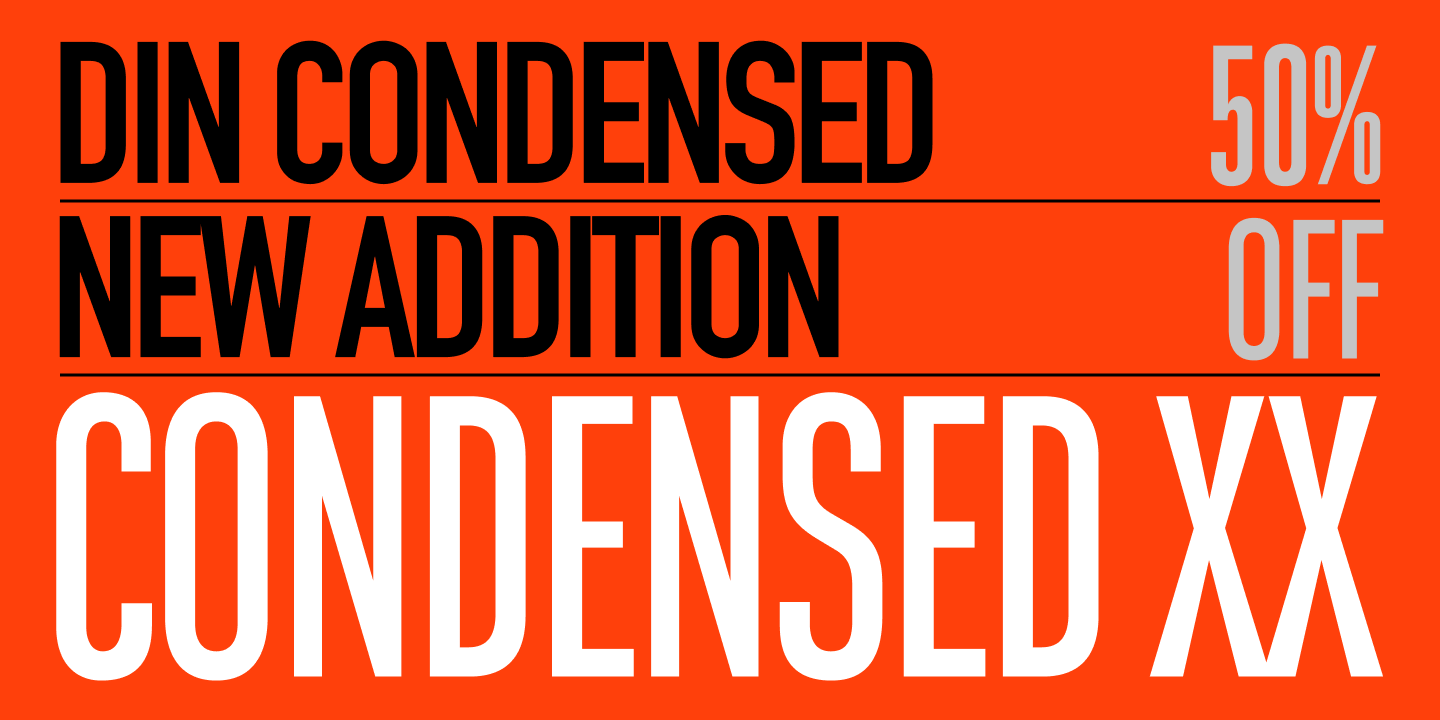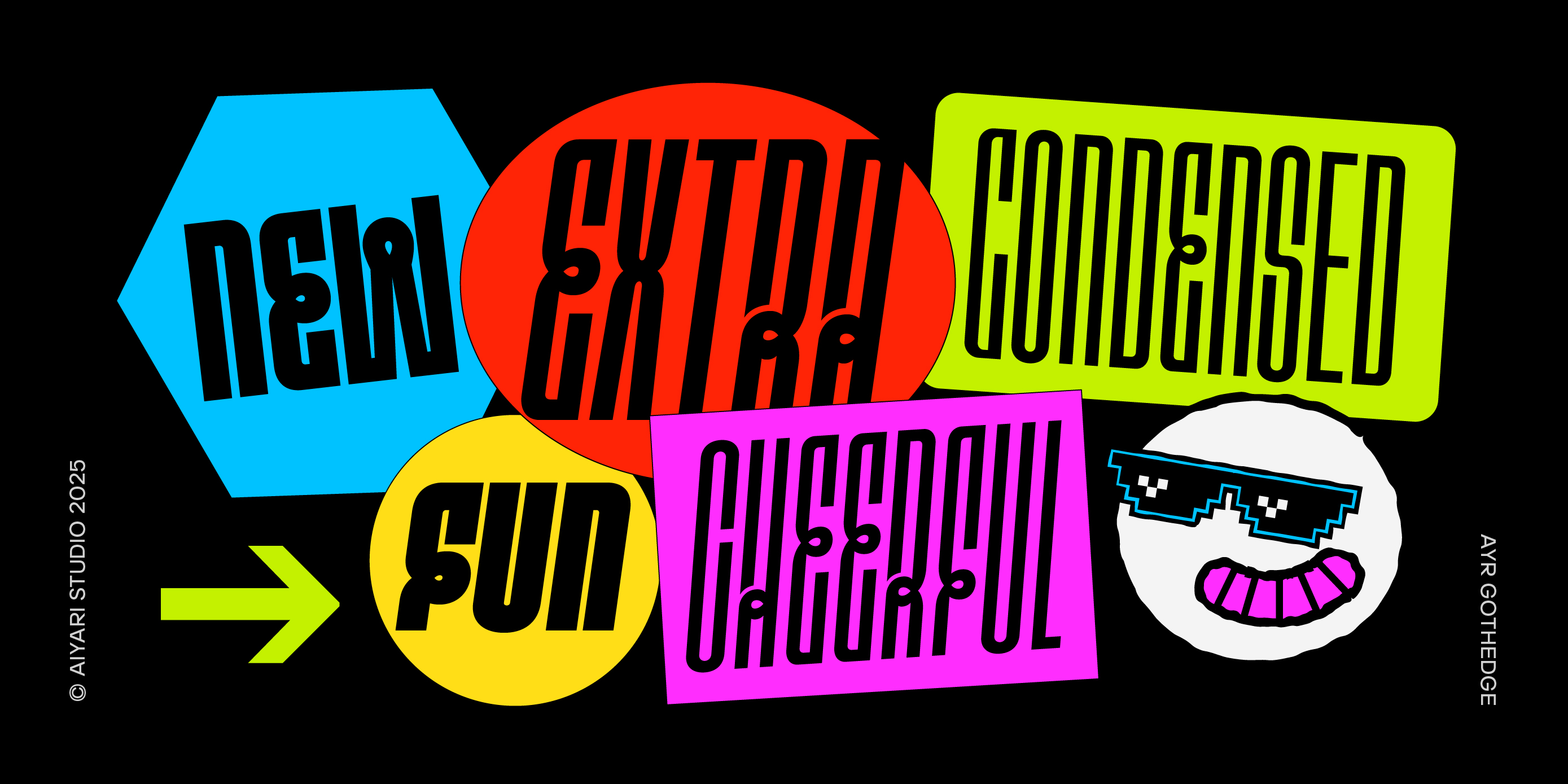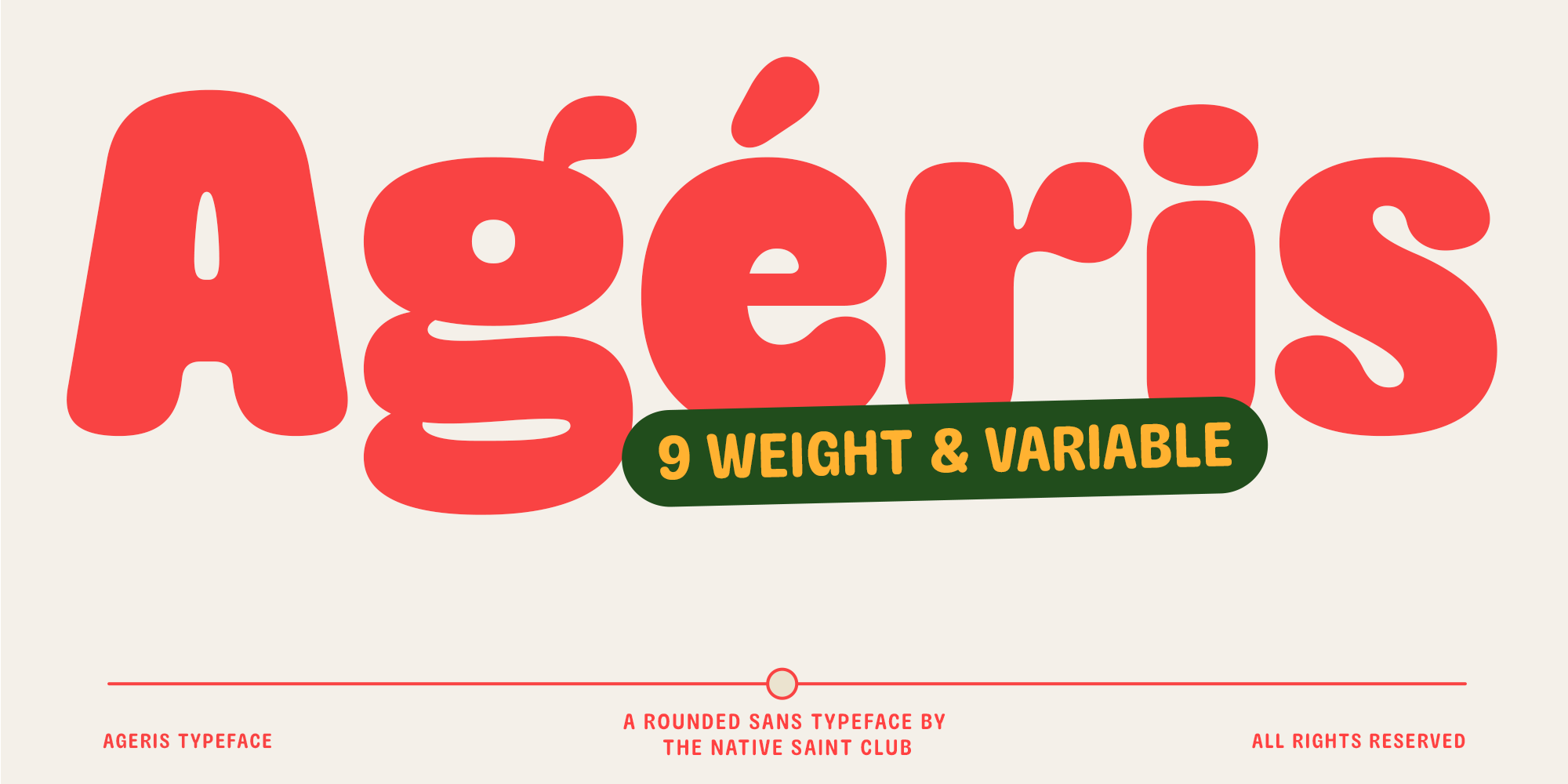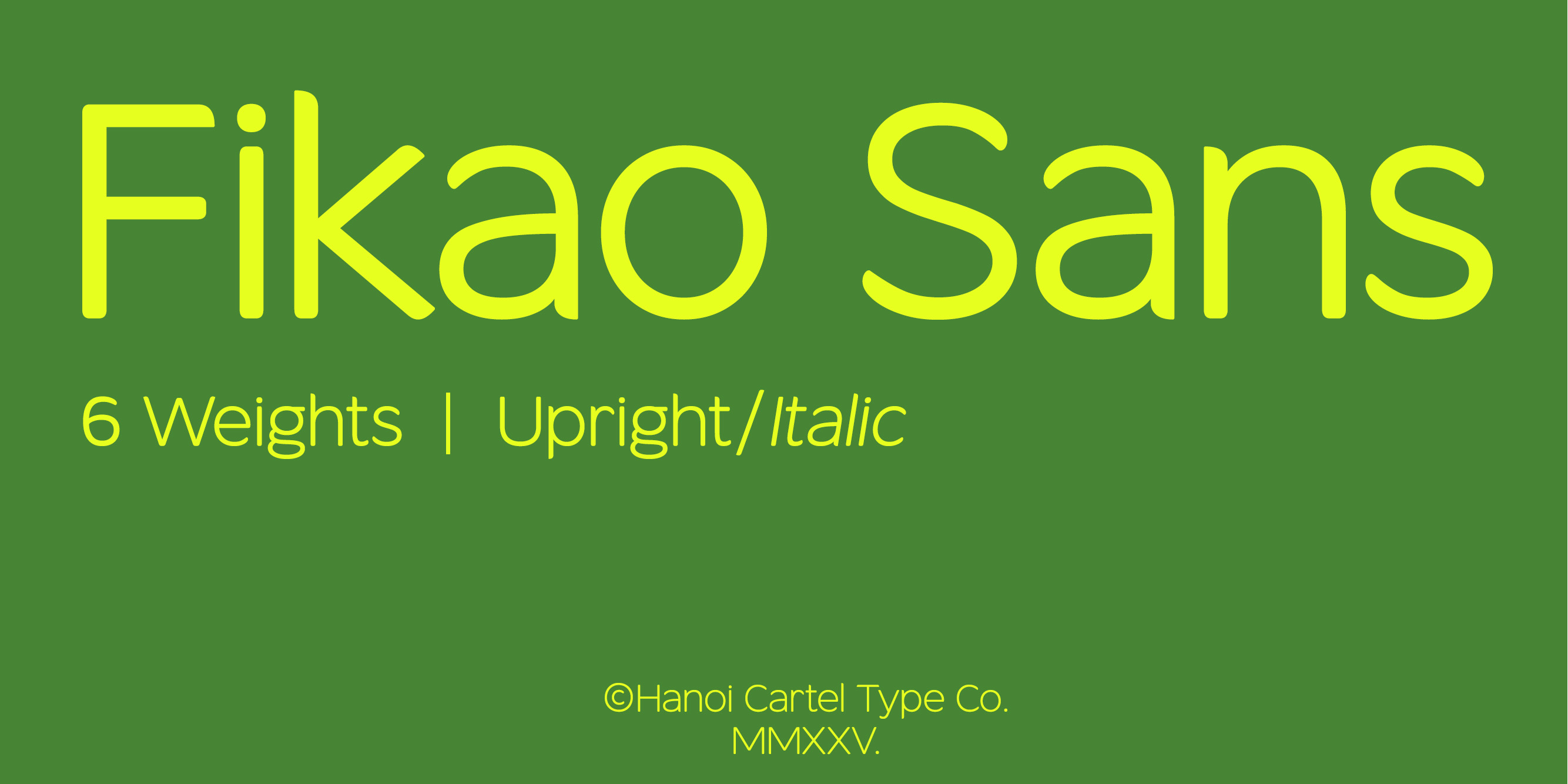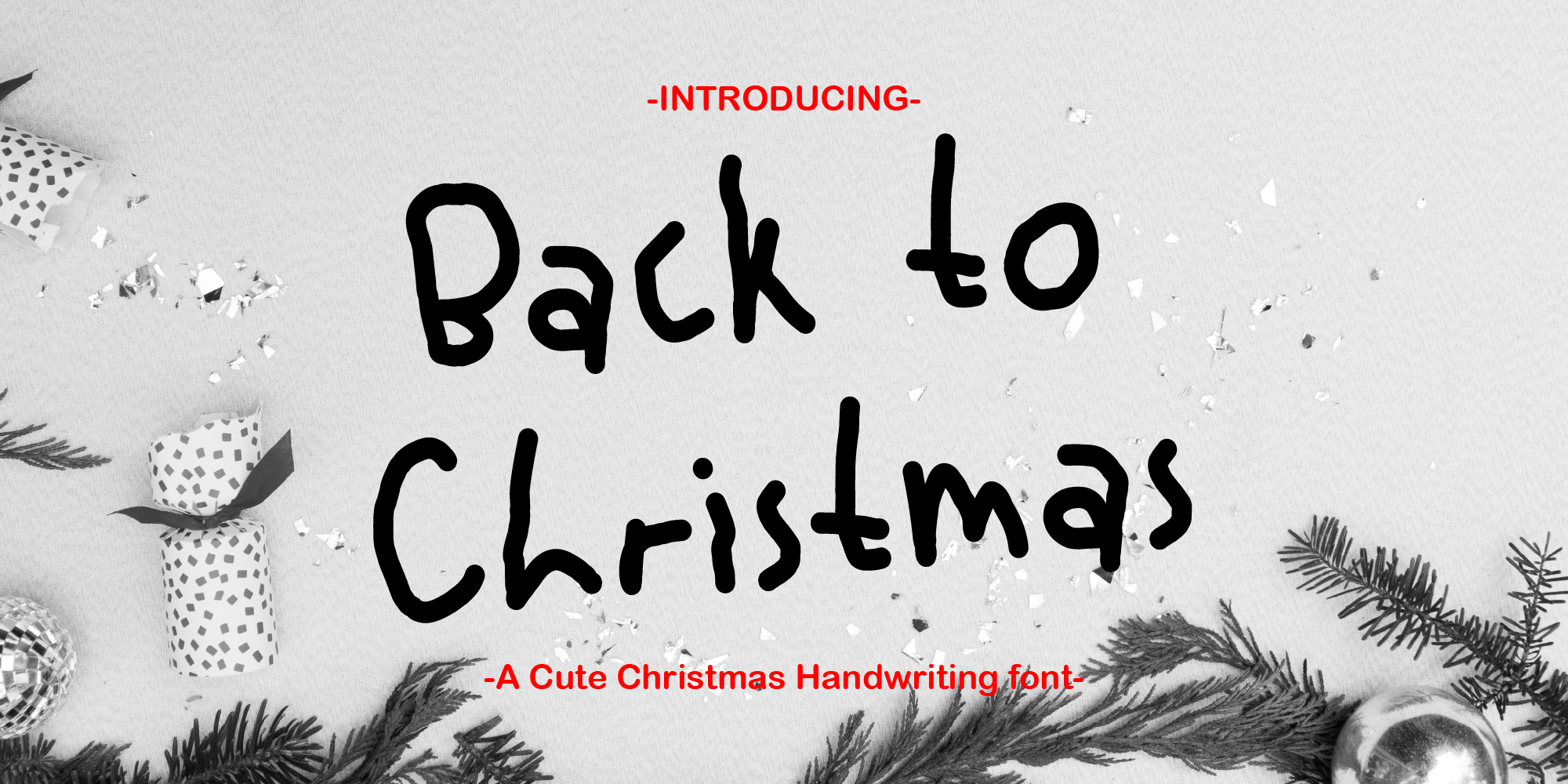
DIN Condensed is a narrow display typeface based on the DIN-standard typefaces—German industrial sans serifs from the early 20th century. Its clean, simple letterforms ensure readability, while its condensed proportions help conserve space in text, logos, signage, and packaging. The DIN Condensed family now includes two widths (Condensed and Condensed XX), six weights (Light, Normal, and Demi Bold), and a variable font with two axes that let you precisely fine-tune stroke thickness for headlines or text. If you are looking for a versatile typeface for website menus, app interfaces, or any design where space efficiency is a priority, DIN Condensed is an excellent choice. Additionally, DIN Condensed pairs seamlessly with the open-source Bold style, enhancing its versatility for a wide range of design needs. 7 fonts for $169 $84.50 | |
Gothedge, a striking 14 font family that seamlessly blends the elegance of clean, streamlined letterforms with the playful and experimental spirit of the Art Nouveau era. Its ultra-condensed, tall letterforms feature unique curving details, making Gothedge is the ideal choice for those seeking a balance between refined elegance and avant-garde creativity. Gothedge excels in various applications, including headings, invitations, logos, quotes, apparel design, flyers, posters, greeting cards, product packaging, book covers, album covers, and movie titles. 14 fonts for $200 | |
Sonya is a new all-caps serif font that offers a wide variety of alternates and features up to 7 unique ligatures for each two-letter combination. 1 font for $25 | |
TNSC Ageris is a rounded sans serif typeface designed to bring joy, energy, and warmth to your visual projects. This family comes with 9 weights from Thin to Black plus a Variable Font, giving you full control over contrast, weight, and expression. Perfect for headlines, packaging, posters, logotypes, playful branding, and friendly modern identities. 9 fonts for $79 | |
Fikao Sans was intendedly designed to become a versatile and impeccably clean sans-serif typeface made for clarity and contemporary appeal. The typeface aims to strike a very delicate balance between geometric precision and humanistic approachability, and with an extensive language support, Fikao Sans hopes to become the workhorse typeface for a modern but friendly consumer brand, or to be extensively used on a range of print materials. Inspired by classic modernist design principles, we stripped away the non-essentials to create letterforms that are legible, open, and aesthetically pleasing even at small sizes. The generous x-height and uniform stroke weight (as seen in both the uppercase and lowercase sets) ensure exceptional readability across print and digital media. 12 fonts for $119.90 | |
Immerse yourself in the enchanting allure of the 'Back to Christmas' font, a handwritten masterpiece swirling with festive magic. Revitalize your diary with the mystique of childlike awe, breathe personality into your blog, or fashion captivating posters and heartfelt greeting cards that make a memorable impression. Rendered with equal charm on a bespoke t-shirt or woven into a crafty endeavor, this font effortlessly radiates an authentic handwritten allure that captures the quintessence of genuine, personal expression. 1 font for $15 $10.50 | |